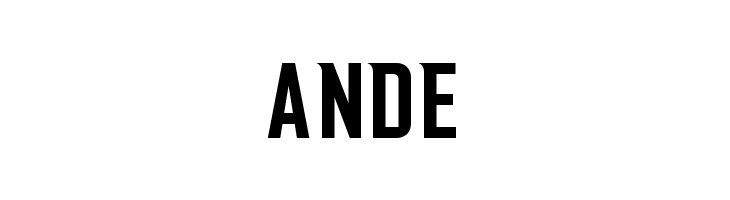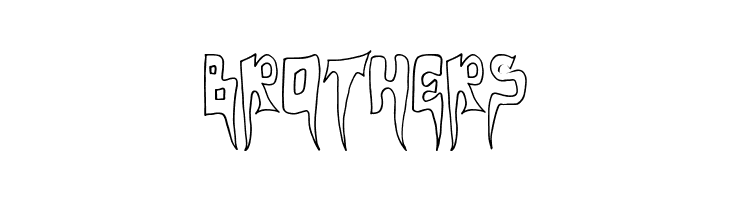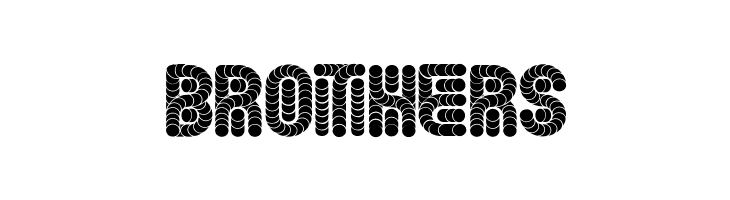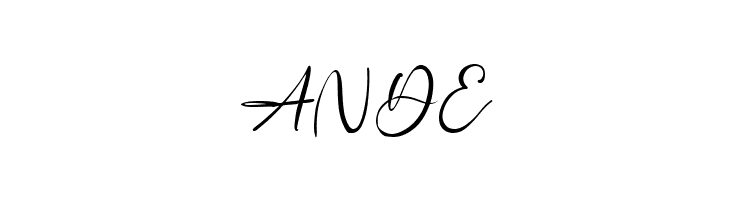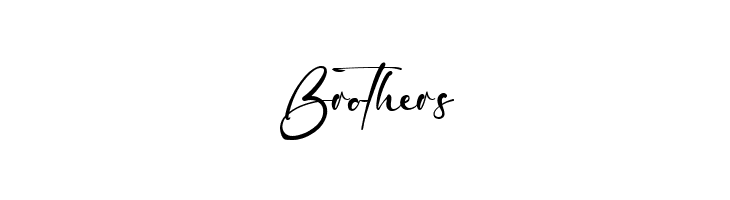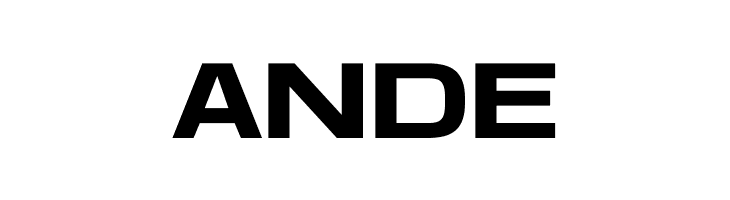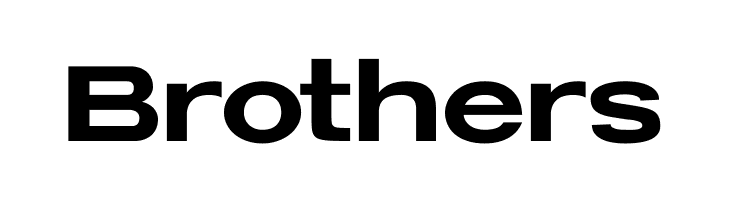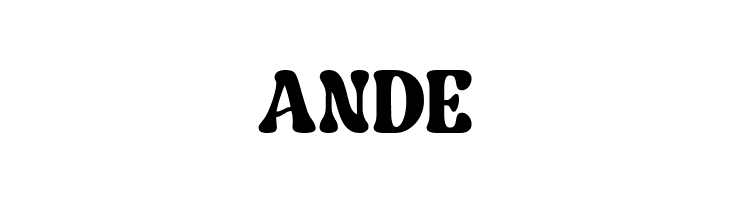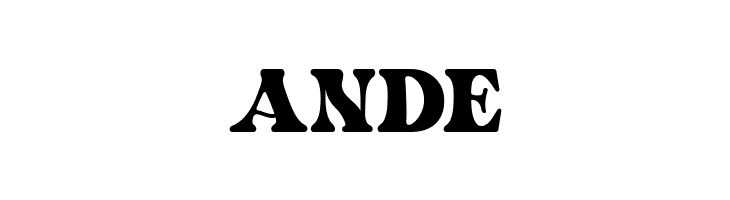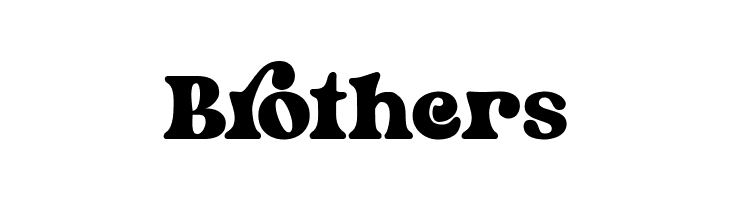
( Fonts by Enxyclo Studio )
A bold, playful font with rounded strokes and a vintage flair.
( Fonts by Enxyclo Studio )
A spooky, dripping font perfect for Halloween themes.
( Fonts by Enxyclo Studio )
A bold, decorative serif font with a playful and vintage-inspired style.
( Fonts by Enxyclo Studio )
A playful, handwritten font with rounded, bold characters.
( Fonts by Enxyclo Studio )
A bold, modern sans-serif font with clean lines and a strong presence.
( Fonts by Ditya Ananto )
A decorative, gothic-inspired font with sharp, elongated serifs and a bold, edgy style.
( memesbruh03 - Aaron D. Chand )
A pixelated, retro-style font with a blocky, digital appearance.
( Caveras - Cliff Modes - caveras.net )
A pixelated, monospaced typeface with a retro digital aesthetic.
( Mica Karaman - be.net/micakaraman )
A geometric, retro-inspired font with bold, angular lines and distinctive curves.
An elegant, flowing script font with a handwritten style.
( Kids Fonts - kidsfonts.mivox.com/ )
A modern, dotted line font with a playful and digital aesthetic.
A bold, decorative font with intricate circular patterns creating a modern and striking appearance.
A classic serif font with elegant, flowing lines and a slightly calligraphic touch.
A modern, geometric font with clean lines and rounded edges.
A bold, textured font with a playful, chalk-like appearance.